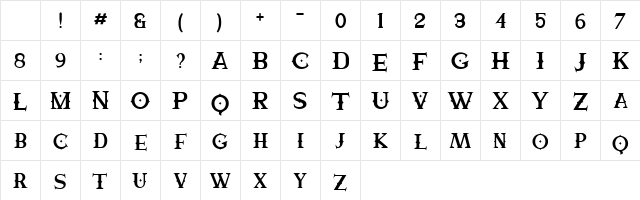
Kingvoon Regular
Foundry: Mikro Type Std
Designer: Mikro Type Std
Design Context for Kingvoon
Kingvoon is a composed and adaptable typeface that performs quietly and consistently across a wide range of design contexts.